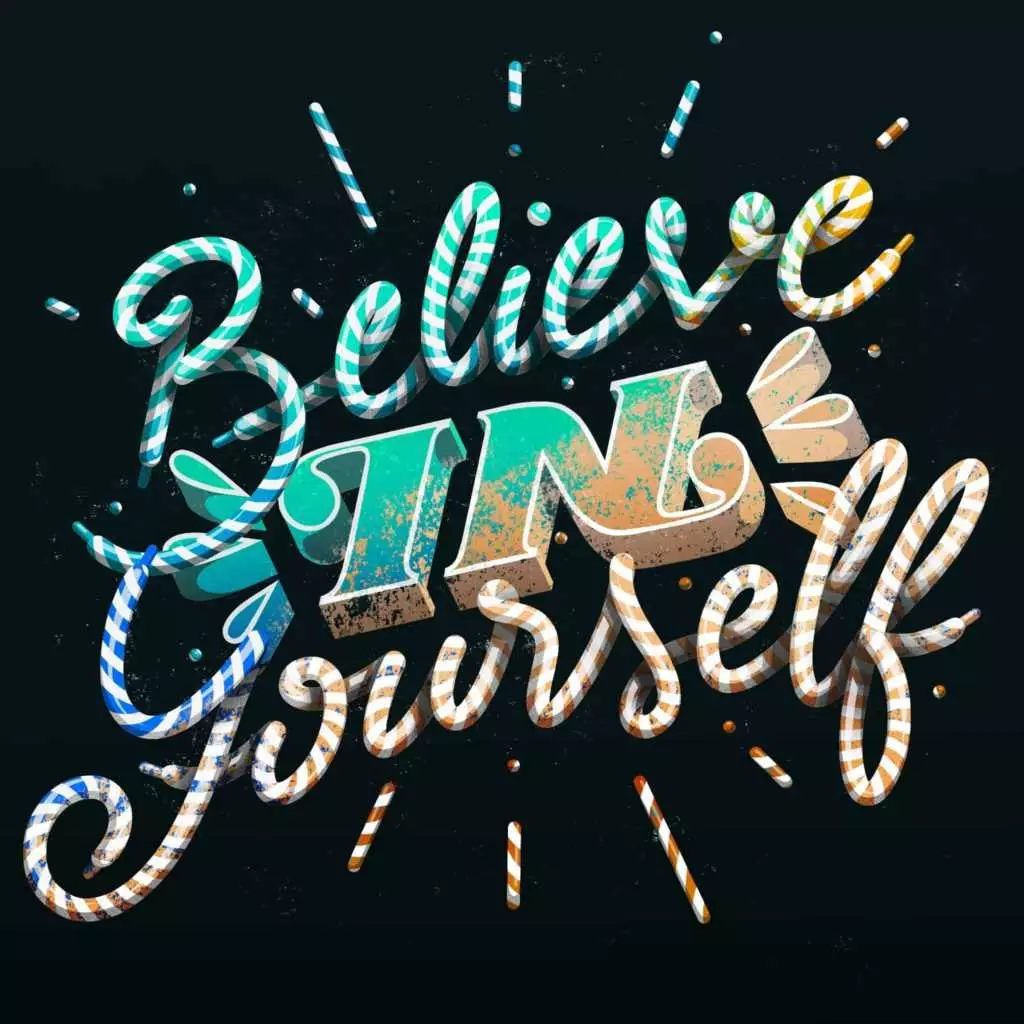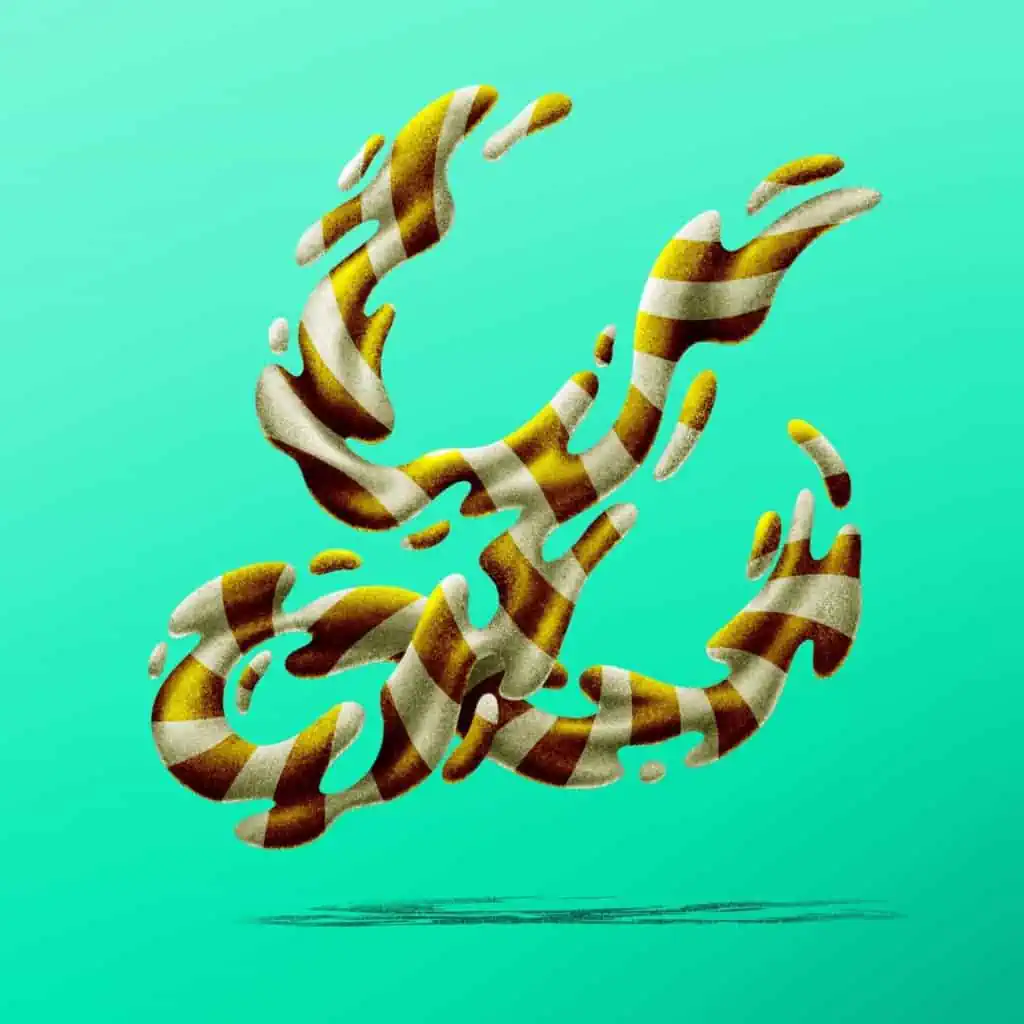
I’ve had the pleasure to have a quick chat with Tom Ad, (also known as Dess) a lettering artist based in France with quite an intriguing and unique artistic style!
Needless to say, I was instantly hooked by the amount of amazing and unique artwork that Dess has been putting out on his Instagram profile.
Another very cool feature that caught my eye was the gradient changing color effect that Dess has been carefully curating on his profile (definitely check it out!)
Hello!
My name is Tom Ad but I prefer to hide behind my pseudo “Dess” (laughs).
Well.. What could I tell you to briefly introduce myself?
I live nearby Paris and studied graphic design for years, going from web design to motion design.
I recently found that, when I was a child, I couldn’t stop drawing letters (see below the old sketches I found at my parent’s)
If I had to define what I do, I think I’d say, at the moment, I’m a graphic lettering maker.
2) How did it all start? When and why did you get into lettering?
How did it all start? I guess I got the lettering fever as soon as I learned to hold a pencil and got to write properly (laughs).
When I was about 10 years old, I used to draw my friendsnames on a piece of paper, and give them the result as tiny gifts.
A few years later, I figured out there was a specific word to define what kind of drawings: graffiti. An epiphany!
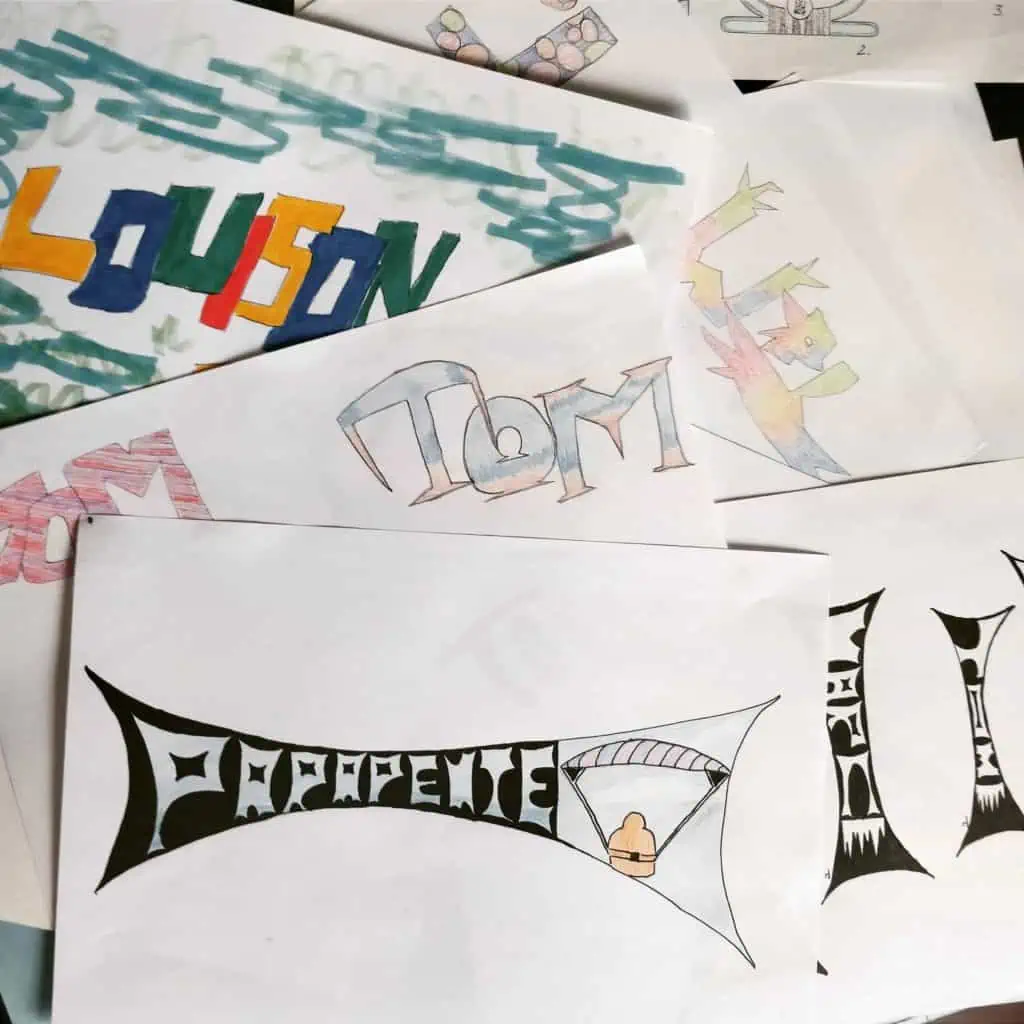
The problem is,
in France, graffiti had a very bad reputation: the concept and the word itself is misconceived. It was exhausting to fight against prejudice regarding that practice…
Step by step, I withdrew from graffiti for another very specific technique: dotwork (see photos)
With dotwork, I continued working with letters, and I felt anew, free to show and introduce my work to people again.
In my opinion, graphic design is a way to express yourself, and show what (and who) you are. That’s why I never stop to work with letters all theses years.
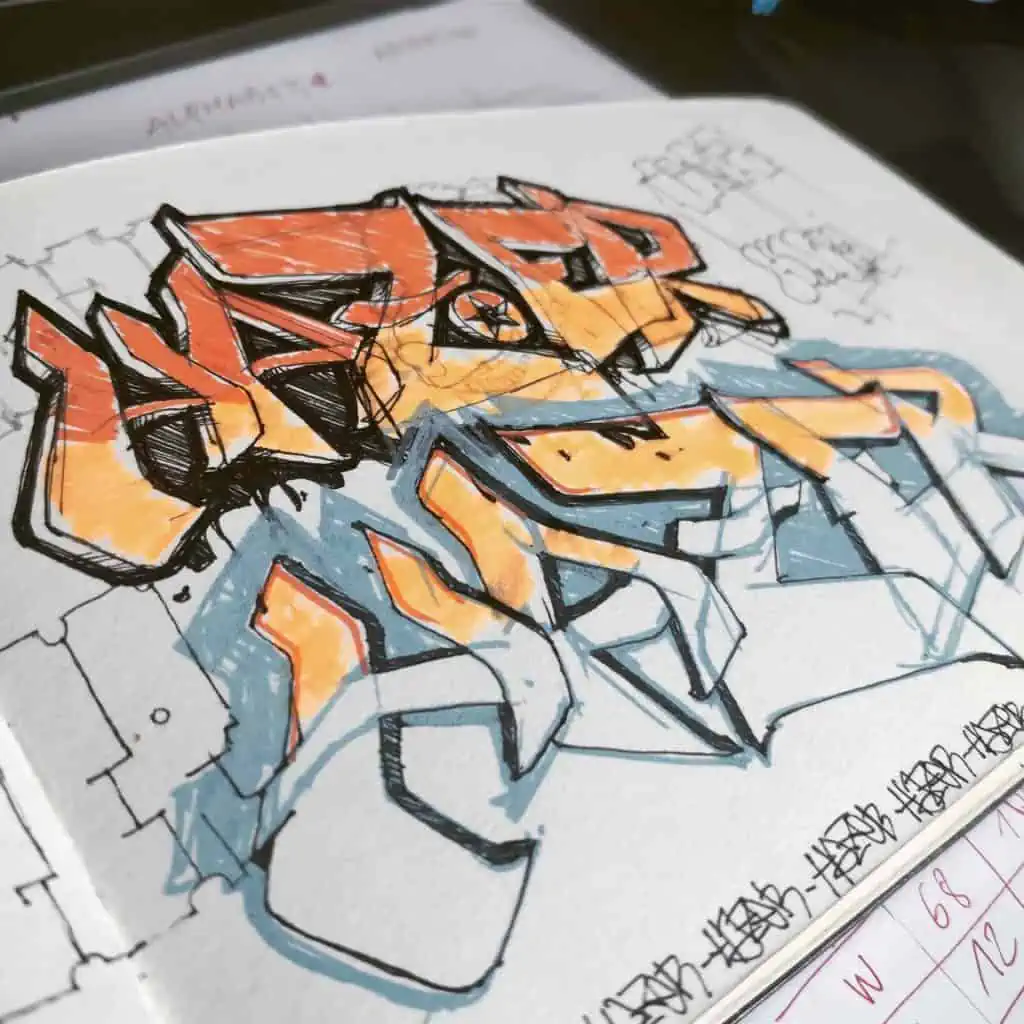
3) Based onyourinstagram feed, we can see that you are really into creative lettering (tweaking shapes, perspectives etc.) Where do you get your inspiration from? What does your creative process look like?
Hmm. Good question 😀
I think curiosity is the best way to stay creative and improve your skills. You need to be open-minded, be aware of what is.
So if I have to answer about where I get my inspiration from, I guess I’d say I get it from everywhere I see. Series, design, books, food, people, stylism, clouds, news, artists, architecture, everything.
Letters are just a pretext to give sense to shapes you are putting together.
I don’t have a specific process. Sometimes it all starts with a graphic technique I want to explore. Sometimes the quote I want to illustrate is really inspiring. But every time I start with a rough sketch.
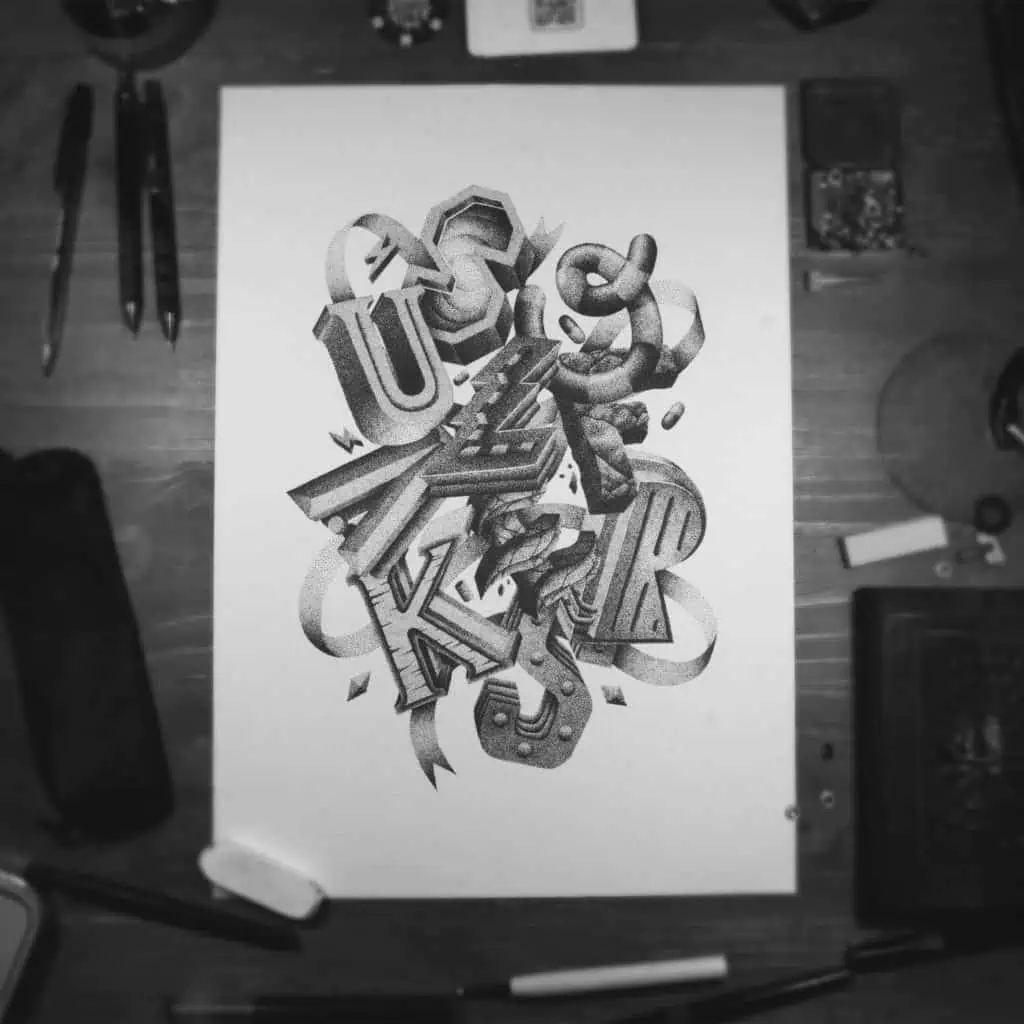
4) You are really enjoying creating your work in Procreate with your iPad Pro, what about the traditional methods of lettering, what are some of your favorite lettering tools?
Pen and paper! Definitely. I work on iPad since august 2017. So that’s kinda new for me to digitize my process. The sensations on iPad with an Apple Pen are really close to the real sketching. It sometimes happens that I start drawing on paper with brushes, inks and other stuffs but I admit it’s very rare now.
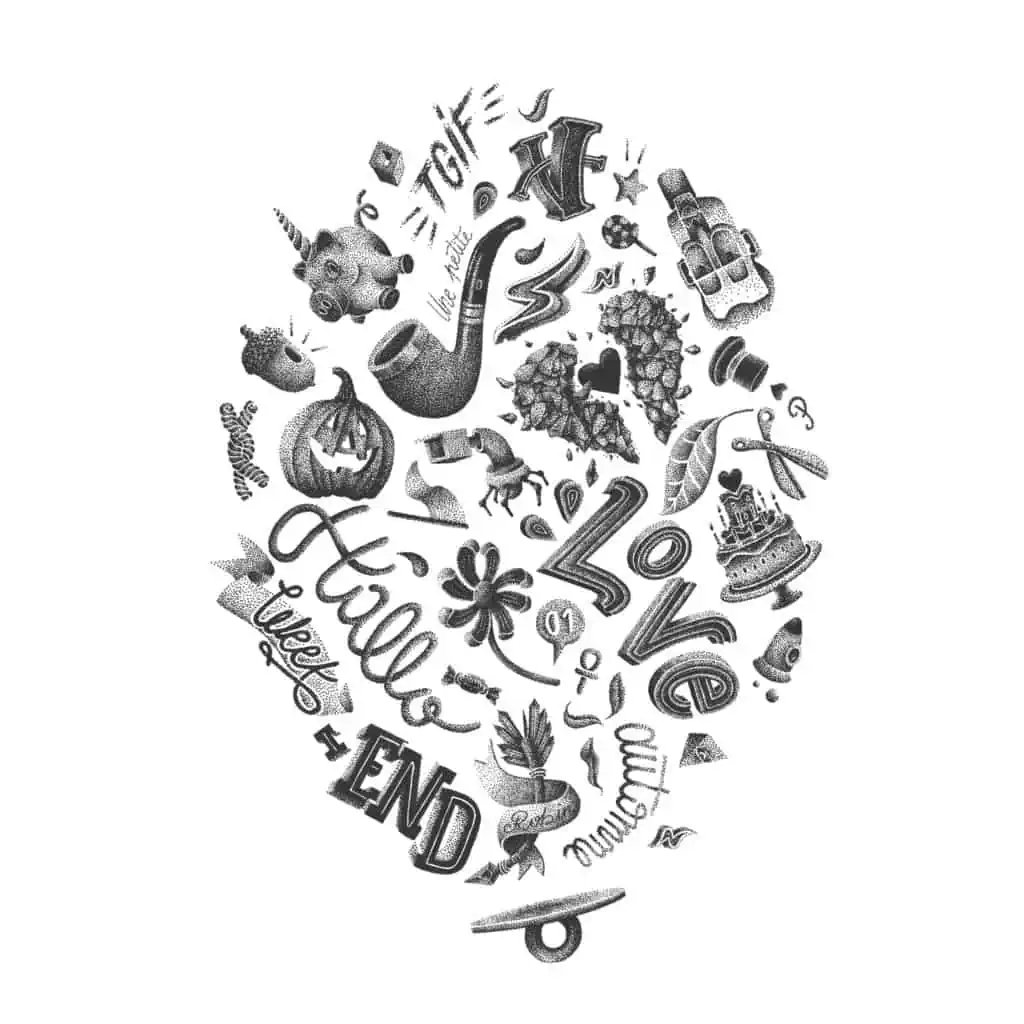
5) What are your thoughts on making a living as a hand lettering/ calligraphy artist? Is it possible? What are your experiences with this?
I think it’s the secret dream of everyone (laughs). Some cultures are more likely than others to work with lettering artists.
Today, I can’t say I make a decent living with my work.
But I hope one day I will, here in France or elsewhere. In fact, you can use Lettering on every medium where you can applyGraphism : books, visual identities, CD covers, event displays, or anything else.
Even in animation like in movie credits, web ads, video mapping, etc.
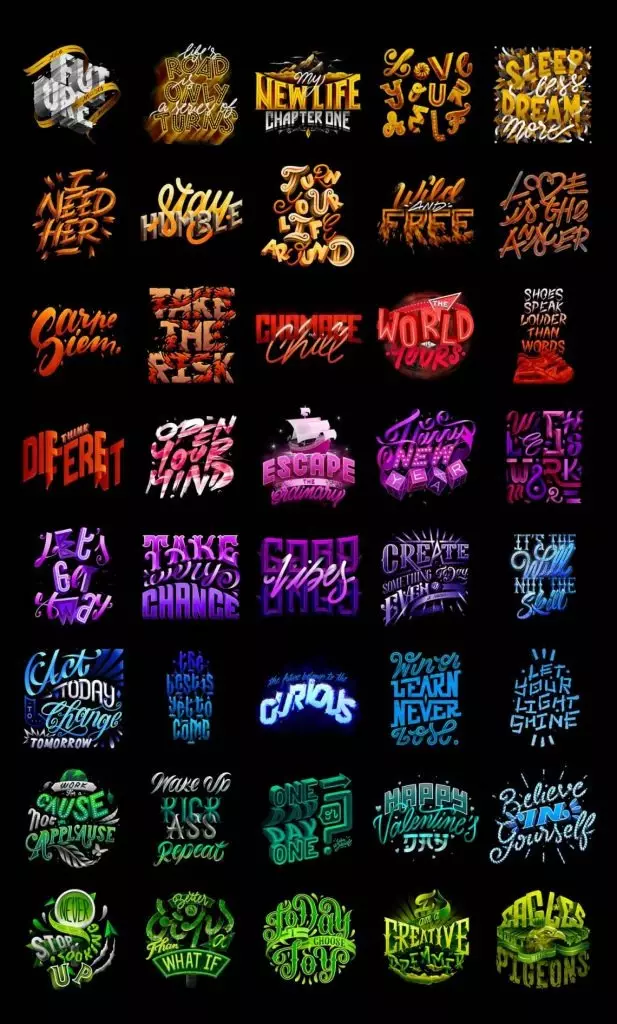
6) Books are amazing for learning hand lettering and calligraphy. Would you be able to recommend some of your favorites?
I don’t have any book about learning hand lettering, but I do have books to inspire me:
- The “Handstyle Lettering, from calligraphy to typography by victionary” is my favorite.
- All the books by Doyald Young are really cool too !
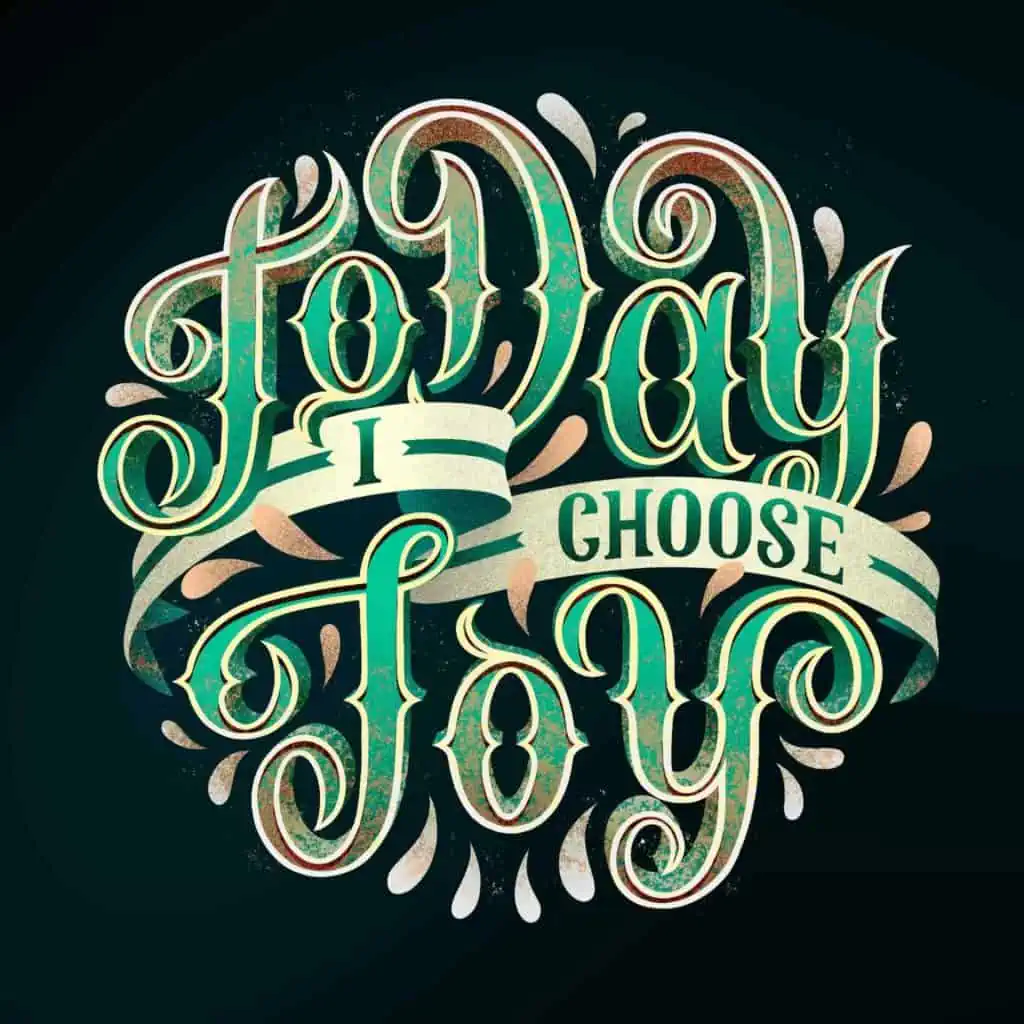
7) We all have some favorite artists that inspire us, who are your favorites? Who inspires you?
The main artists who inspire me are not lettering artists. There is “Pejac”, I love the sensibility he puts into his art and what he denounces.
I admire street artists like Shepard Fairey or “Banksy”, and all the artists who are using their creativity to show their opinions to the world.